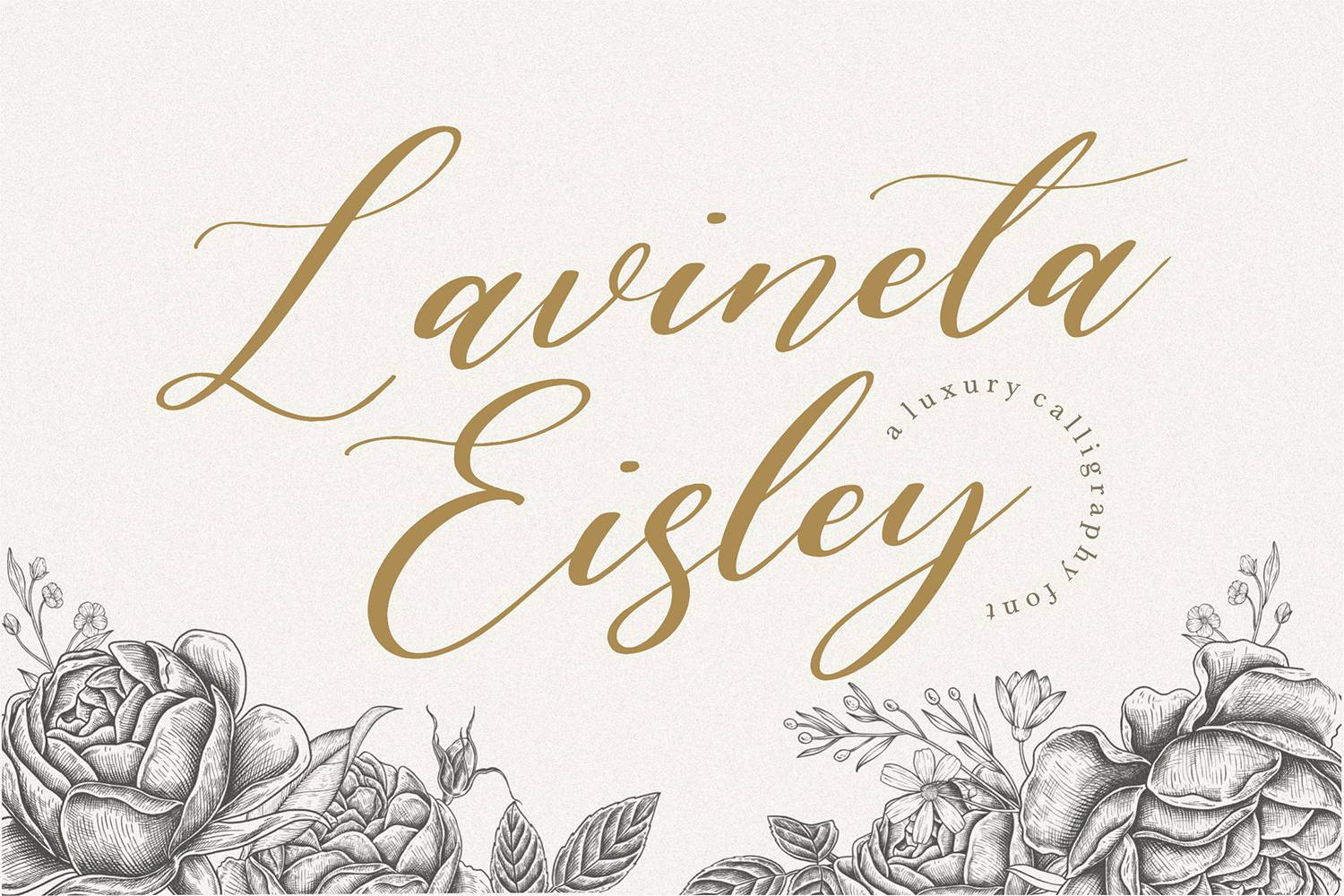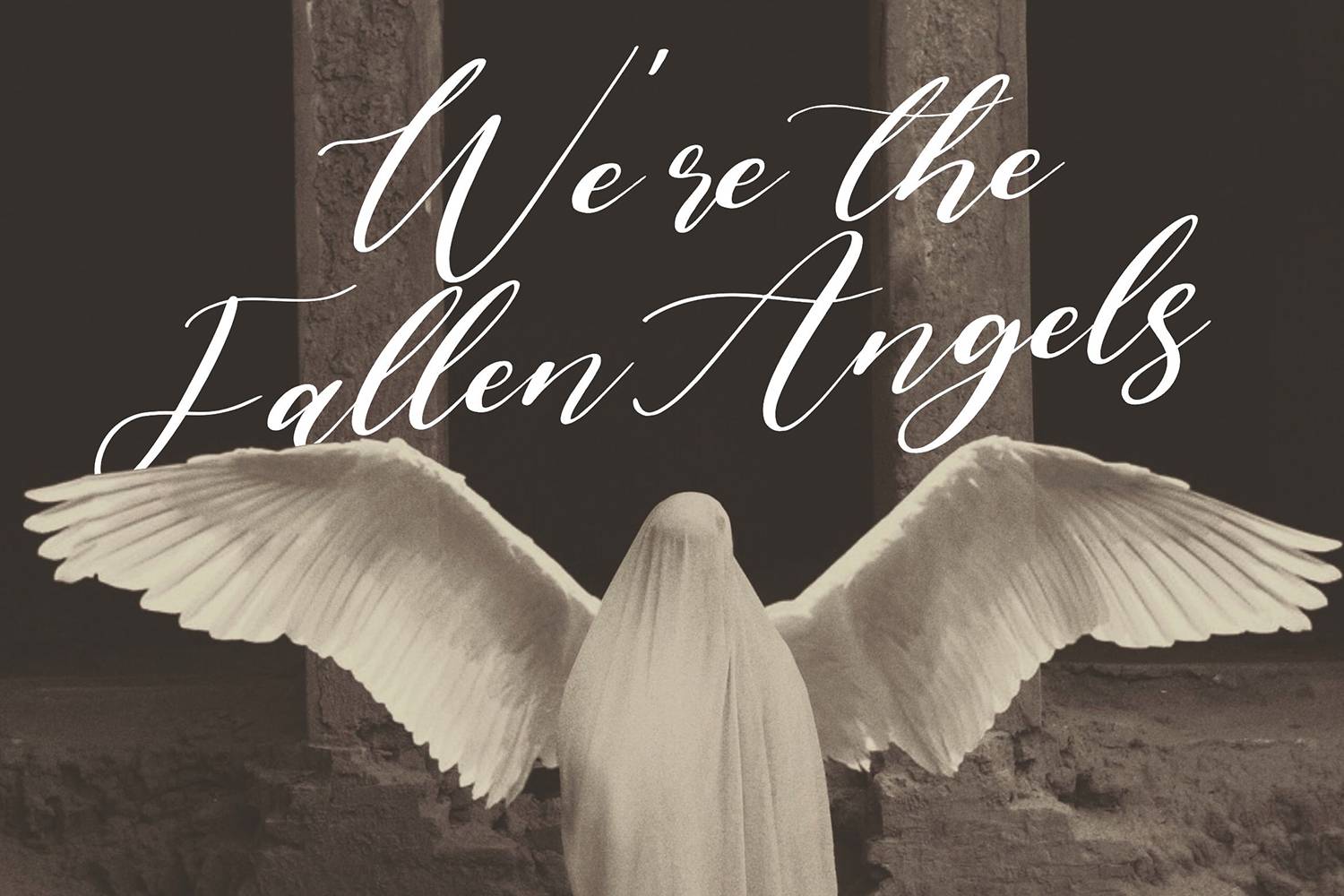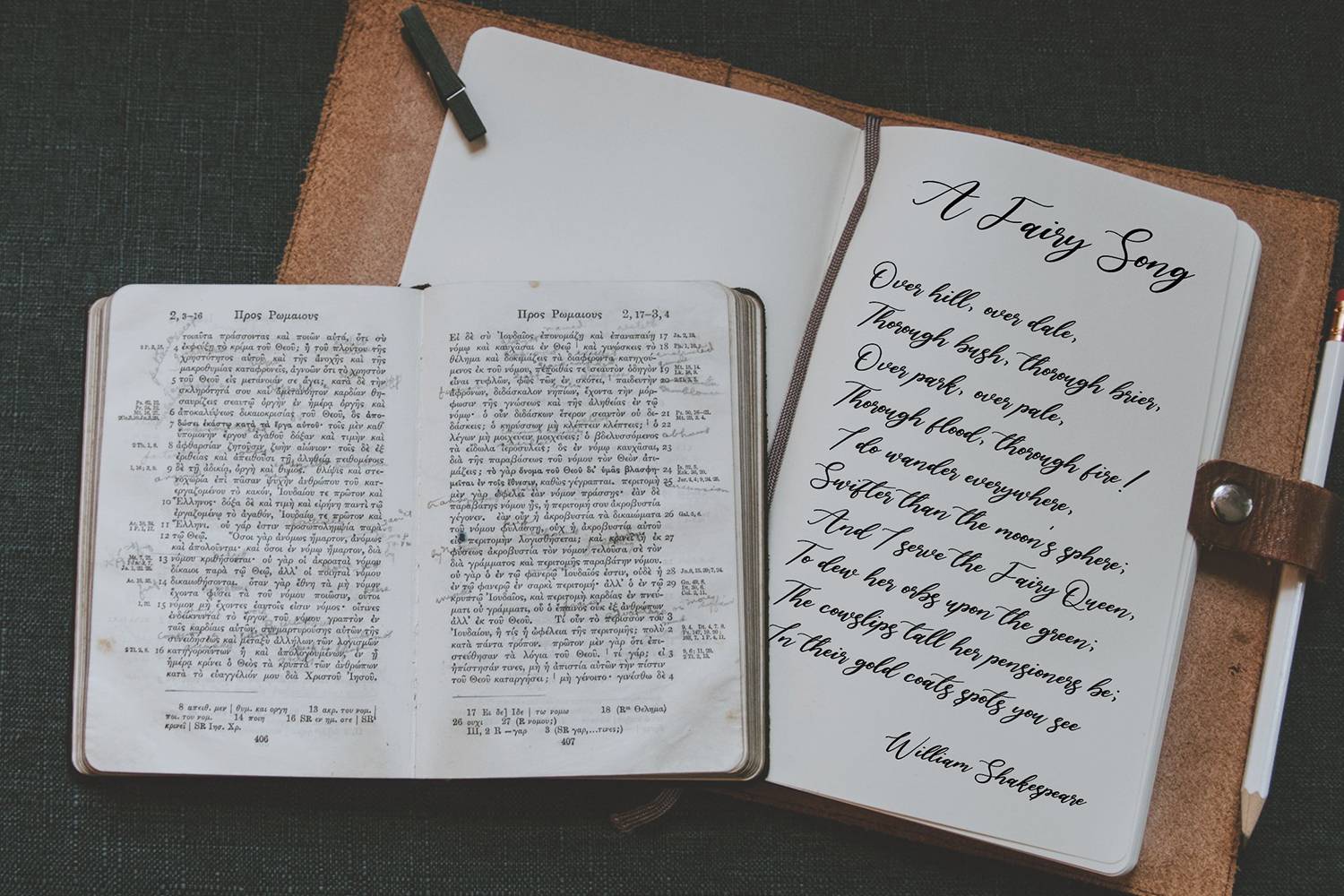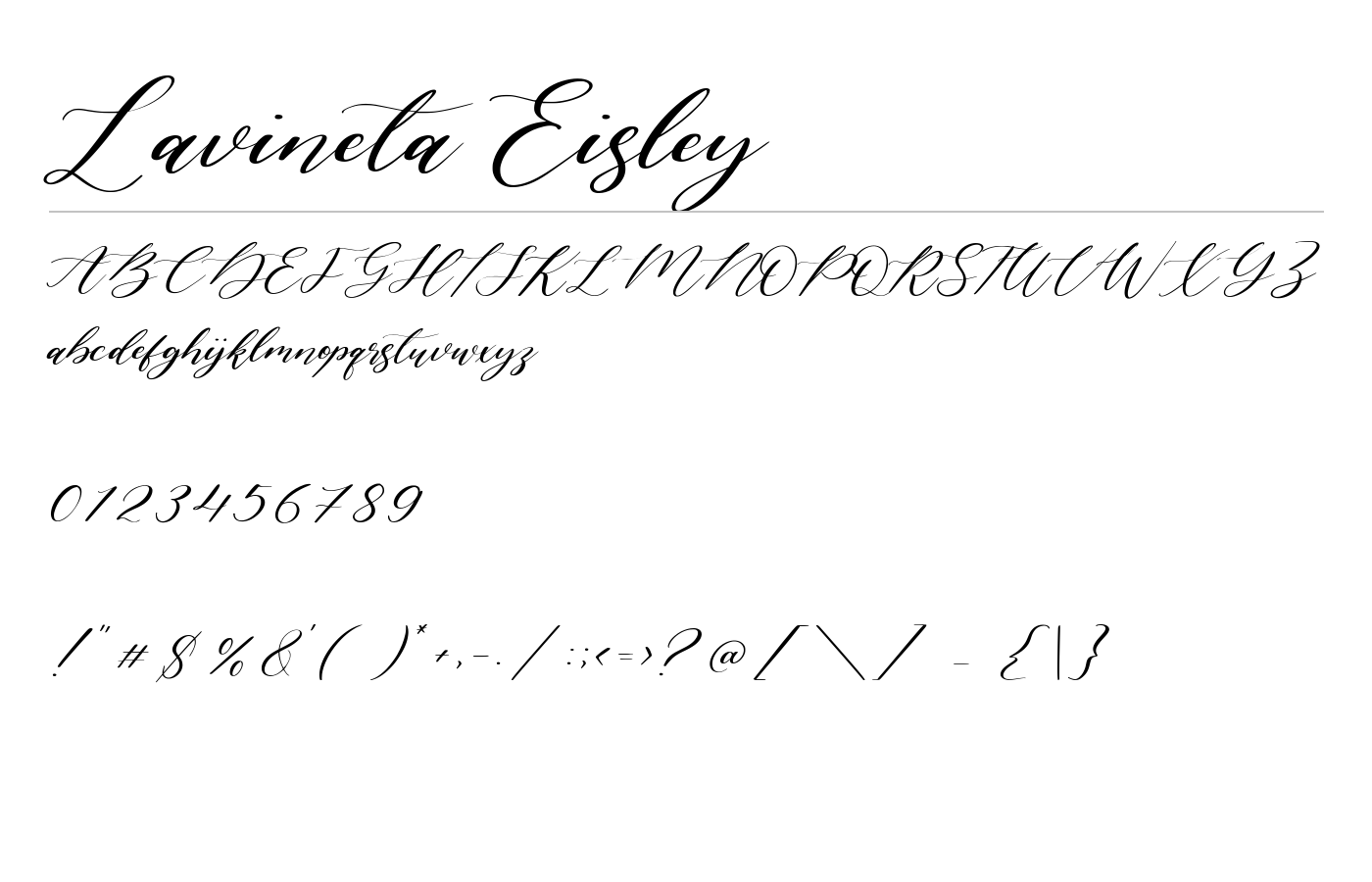
Lavineta Eisley Luxury Calligraphy is an elegant script font characterized by its flowing, delicate strokes and refined letterforms, perfect for conveying sophistication and grace. Its high-contrast, slender lines with smooth curves give it a luxurious, handwritten feel ideal for upscale branding, wedding invitations, and editorial headlines. This graceful typeface shines best in settings that require a touch of timeless elegance and artistic flair.
Lavineta Eisley Luxury Calligraphy Font
About Lavineta Eisley Luxury Calligraphy Font